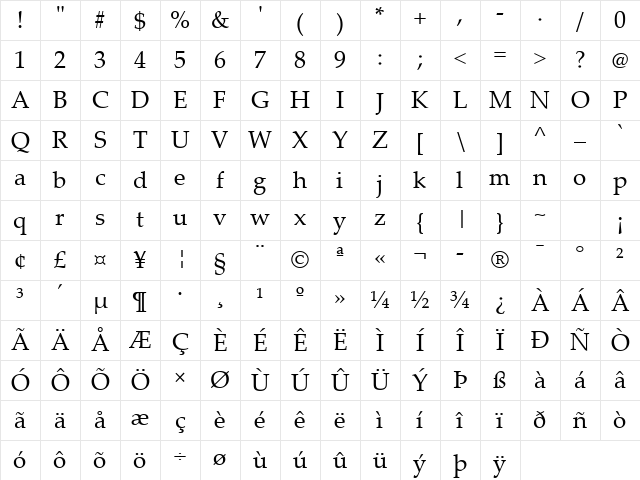
Palatino Linotype Regular
Foundry: LINOTYPE-HELL AG
Designer: Hermann Zapf
Complete Palatino Linotype Regular glyph index. Displaying only characters natively supported by Palatino Linotype Regular font.
Design Context for Palatino Linotype
Palatino Linotype is a composed and adaptable typeface that performs quietly and consistently across a wide range of design contexts.
Who designed the Palatino Linotype Regular font?